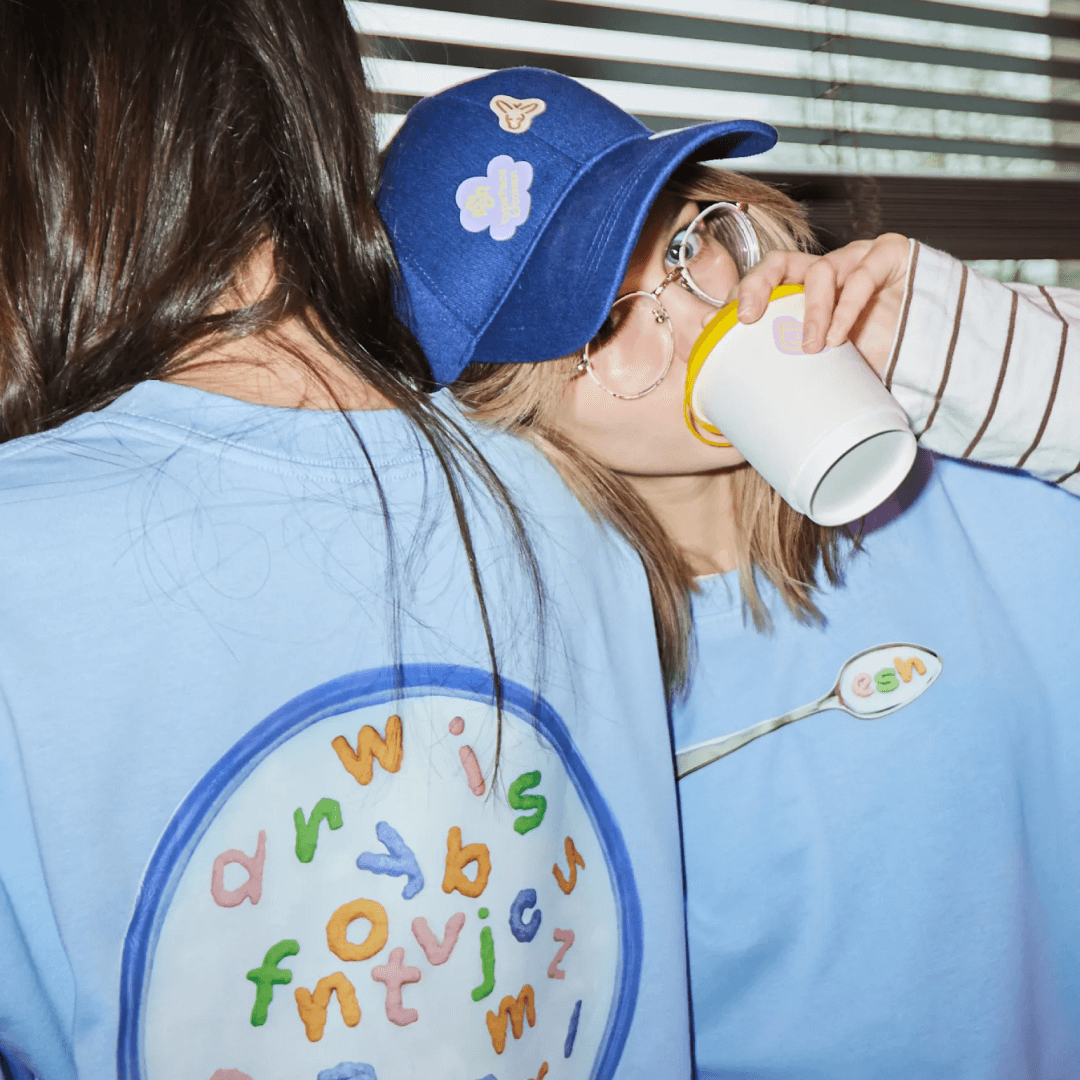
To celebrate the release of the custom ESH Typeface, the studio created a limited-edition merch collection featuring three oversized T-shirts with 3D food-inspired prints. Each design reimagines the typeface as dough, sandwich, and cereal, packaged in pizza boxes and photographed in playful, food-themed settings.
Set in ESH Typeface, Lava Senses, Feerique Script